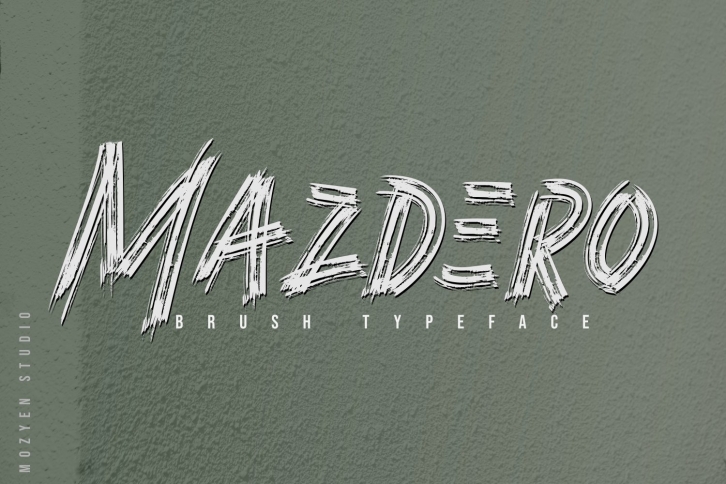
Mazdero is a trendy and unique font with an authentic style. It was designed by Mozyen Studio and it's a great choice for creative people who need such a font. It was released on December 5, 2020 and the file size is 9.68 MB. Mazdero will add an organic vibe to any design idea!